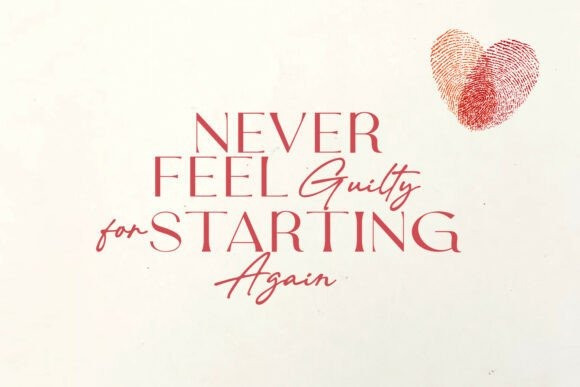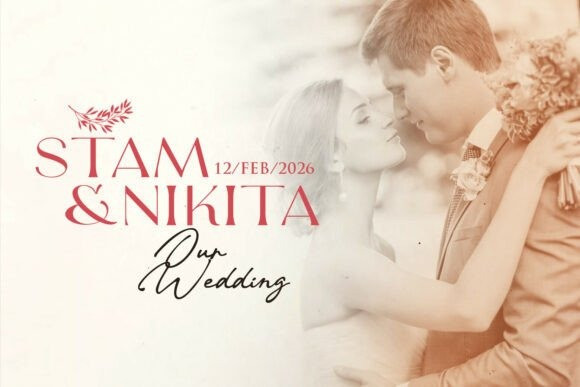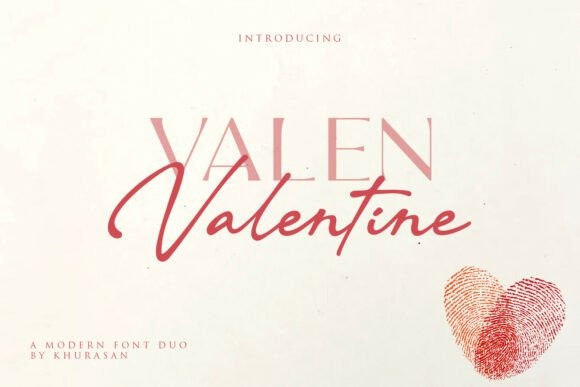
Valen Valentine Font Duo
Valen Valentine Font Duo — a romantic font duo designed to capture hearts and tell love stories through letters.Valen Valentine combines a graceful script that flows like handwritten love notes with a clean, modern serif that brings balance and clarity. Together, they create the perfect harmony between emotion and elegance, making every design feel warm, intimate, and unforgettable.
Whether you’re creating wedding invitations, Valentine cards, romantic branding, social media quotes, or love-themed packaging, Valen Valentine adds a touch of passion and charm that instantly connects with the viewer’s heart.